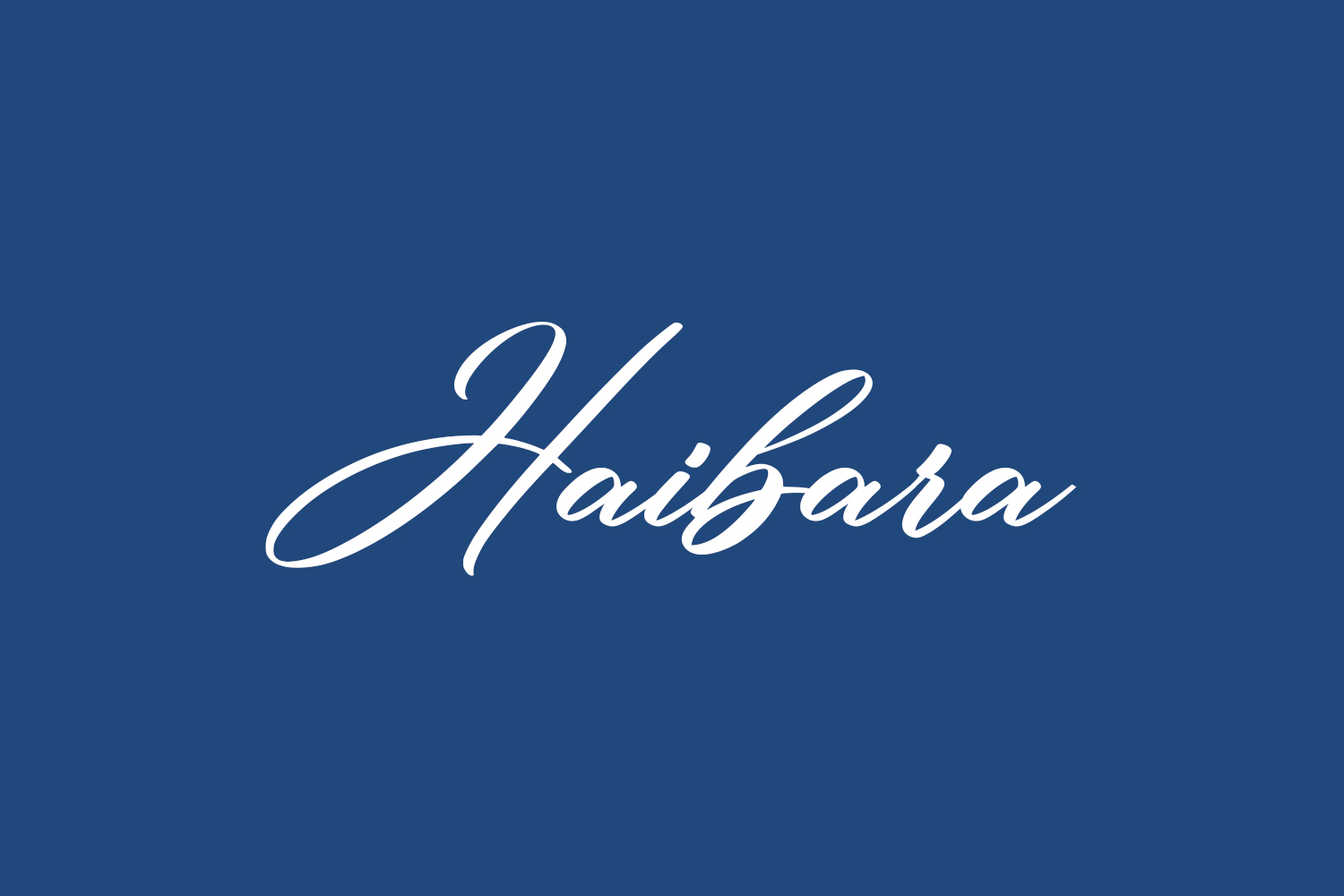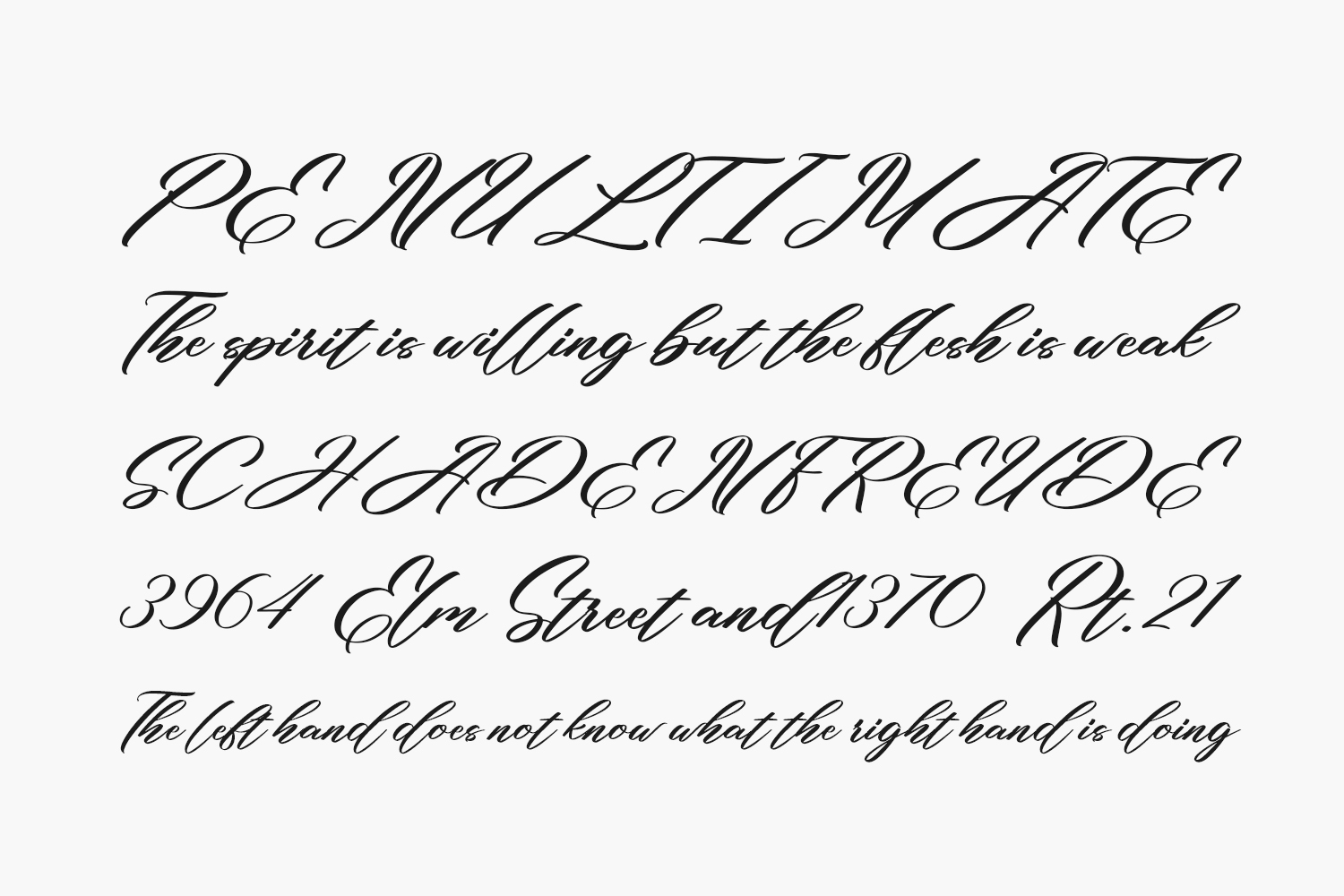
Haibara Free Font is a sophisticated script font designed to add a touch of elegance to your projects. Elevate your logos, labels, branding, invitations, websites, quotes, and beyond with this exquisite typeface. Incorporate Haibara to elevate your designs and ensure they stand out from the crowd. Download the font for free if you need it for personal use or purchase the full version for commercial use.
Designed by Makashi